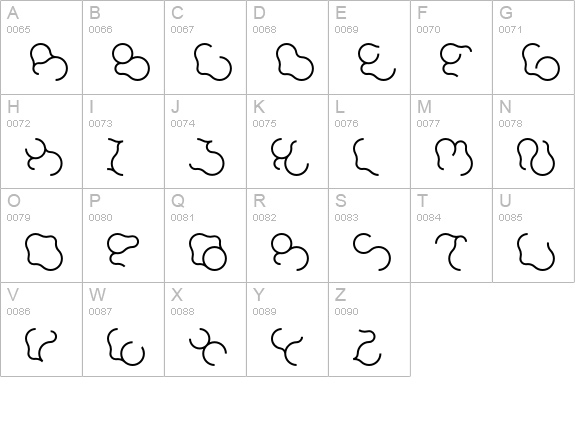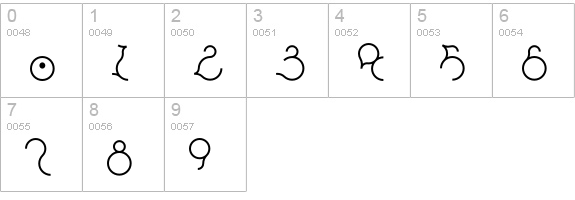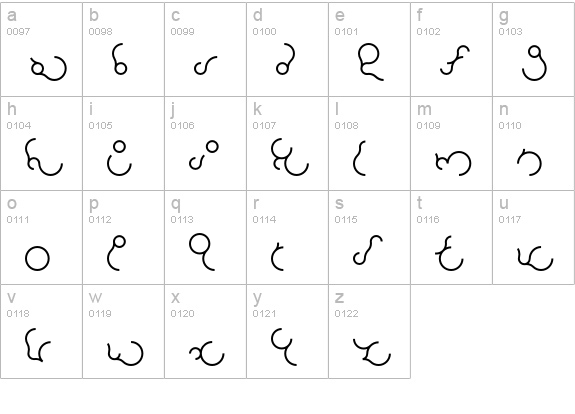
Paresser-ExtraLight Font Details
Paresser-ExtraLight is an airy, ultra-refined variant in the Paresser typeface family \xE2\x80\x94 well suited to minimalist headlines and refined display use.
Paresser-ExtraLight is a stunningly elegant font that radiates a sense of effortless grace and sophistication. With its delicate and refined letterforms, this font exudes a timeless beauty that captivates the eye. Crafted with meticulous attention to detail, Paresser-ExtraLight is a typeface that effortlessly combines modern simplicity with classic charm. Its slender strokes and clean lines create a sense of lightness and airiness, making it perfect for projects that require a touch of subtlety and refinement. The versatility of Paresser-ExtraLight is truly remarkable. Whether used for branding, editorial design, or web projects, this font shines in any context. Its legibility and clarity make it an ideal choice for body text, while its distinctiveness and uniqueness make it an excellent option for headlines and logos. One of the most remarkable aspects of Paresser-ExtraLight is that it is free. That's right, this extraordinary font is freely available to download at FontsMarket.com. This means that you can add a touch of elegance to your designs without any financial constraints. It's a rare opportunity to access such a high-quality font at no cost. So why wait? Discover the beauty and versatility of Paresser-ExtraLight today. Download it for free at FontsMarket.com and elevate your designs with its timeless charm and sophistication.